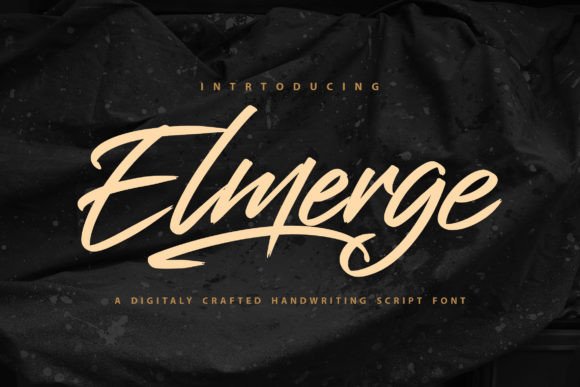
Introduce yourself to the world of extraordinary writing with Elmerge Font, a unique calligraphy-style script font that will transform your designs into captivating works of art. This exquisitely crafted font, brought to life by the talented Vunira, possesses an undeniable charm that will leave a lasting impression.
Elmerge isn't just a font; it's an experience. Its graceful curves and delicate flourishes will elevate your designs to new heights, adding a touch of sophistication and elegance that will make your words dance off the page. Whether you're creating invitations, greeting cards, branding materials, or business cards, Elmerge will leave an unforgettable mark.
Imagine the awe and admiration as your recipients behold your creations, adorned with the elegant strokes of Elmerge. Its captivating beauty will make your words come alive, evoking emotions and creating a connection that resonates with your audience. From quotes that inspire to posters that captivate, Elmerge's allure knows no bounds.
With Elmerge, you'll unlock a new realm of creativity, discovering possibilities you never thought imaginable. Its versatility extends beyond traditional applications, inviting you to explore uncharted territories of design. Unleash your imagination and let Elmerge guide you to extraordinary heights.
Don't settle for ordinary fonts; embrace the extraordinary with Elmerge. Its beauty and charisma will transform your designs into masterpieces, leaving a lasting impression that will make your creations stand out from the crowd. Experience the magic of Elmerge today and elevate your designs to new heights of elegance and charm.